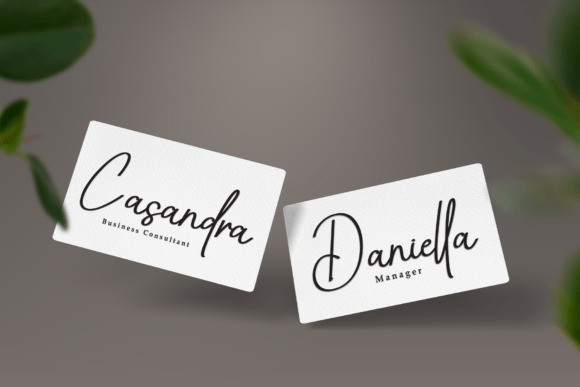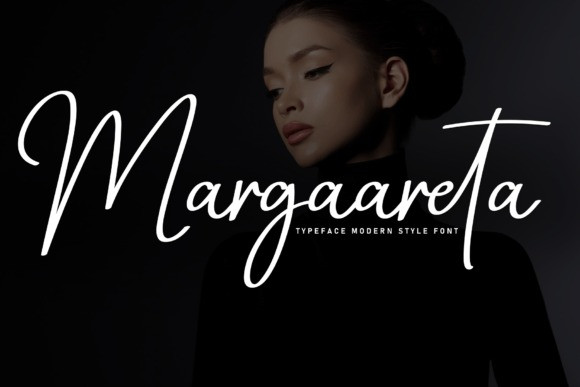
Margareta Script Font
Margareta Script Font is a sweet and friendly handwritten font. Add it to your designs and watch them come alive. It is suitable for use on invitations, cards, watermarks, social media and more.